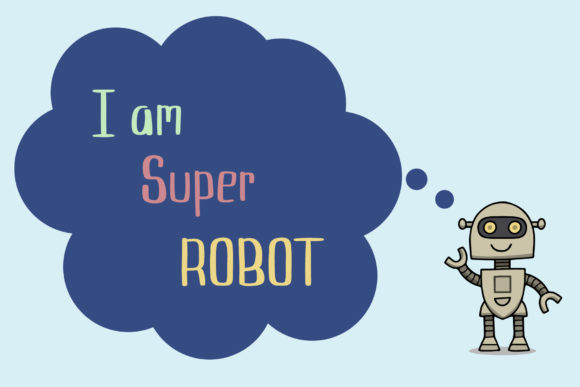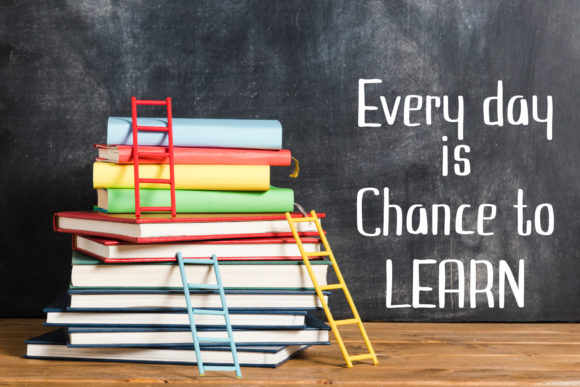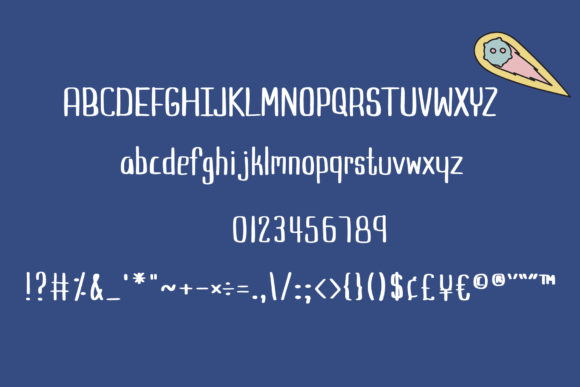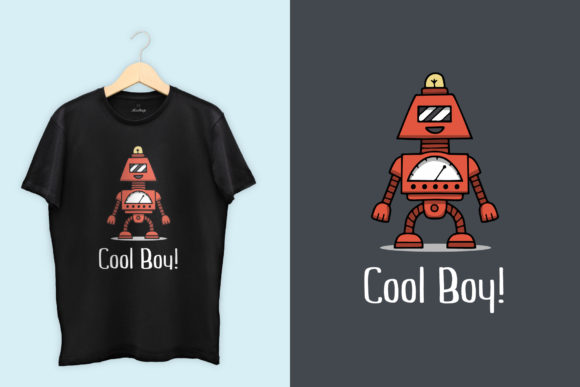
Introduction to Robotic Font
Robotic is a fun and original handwritten font.
It’s perfect for posters, t-shirt, labels, quotes, badges, etc It will take your crafting projects to the next level.
Key Features of Robotic Font
Robotic Font offers exceptional quality and versatility, making it a valuable addition to your design toolkit. Whether you’re creating for personal projects or commercial use, Robotic Font delivers professional results.